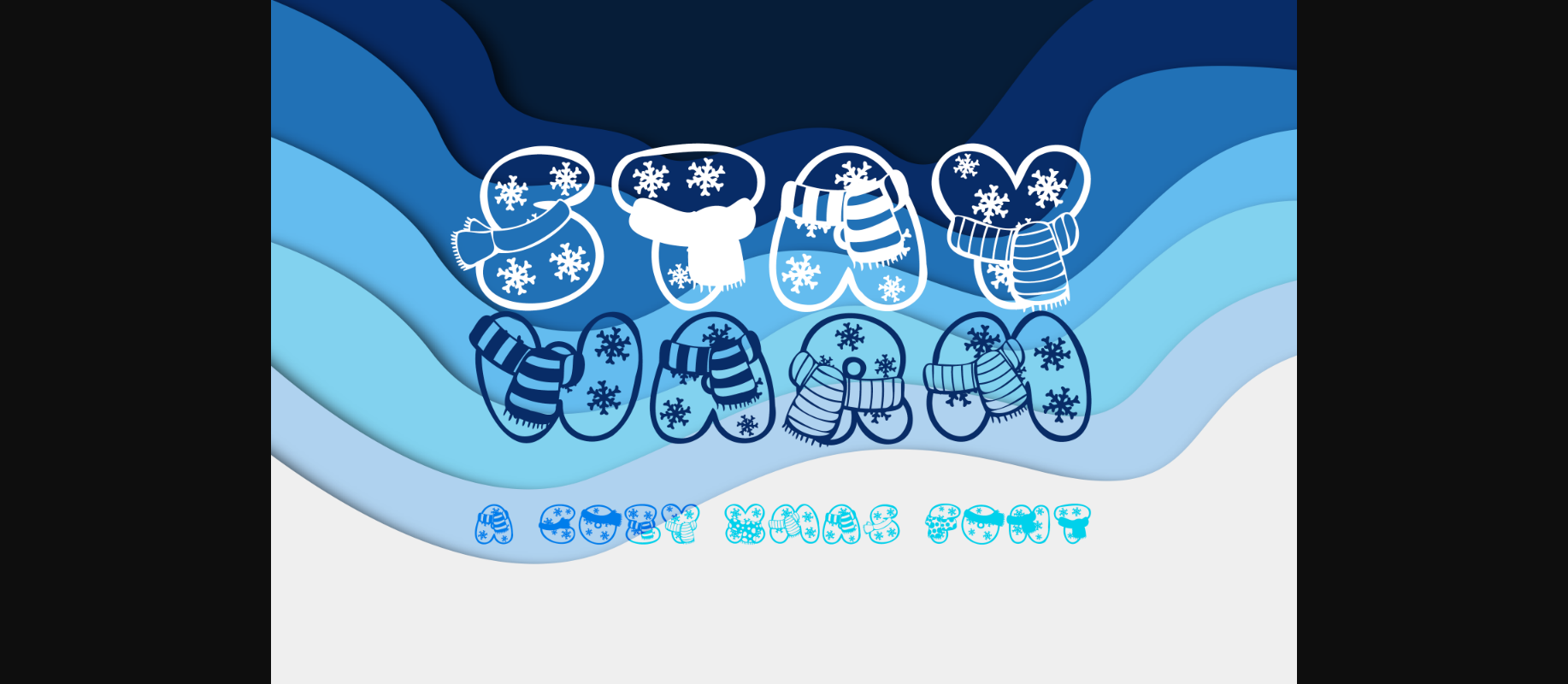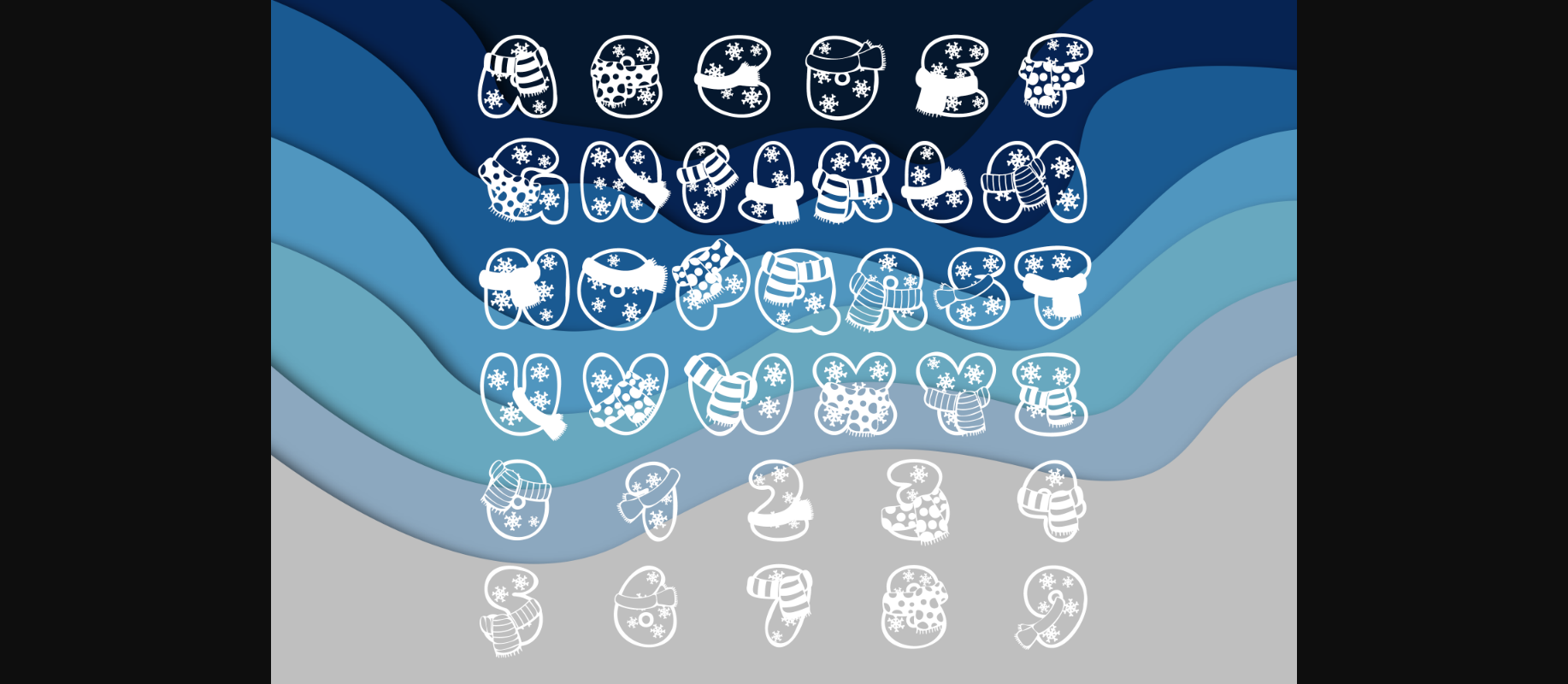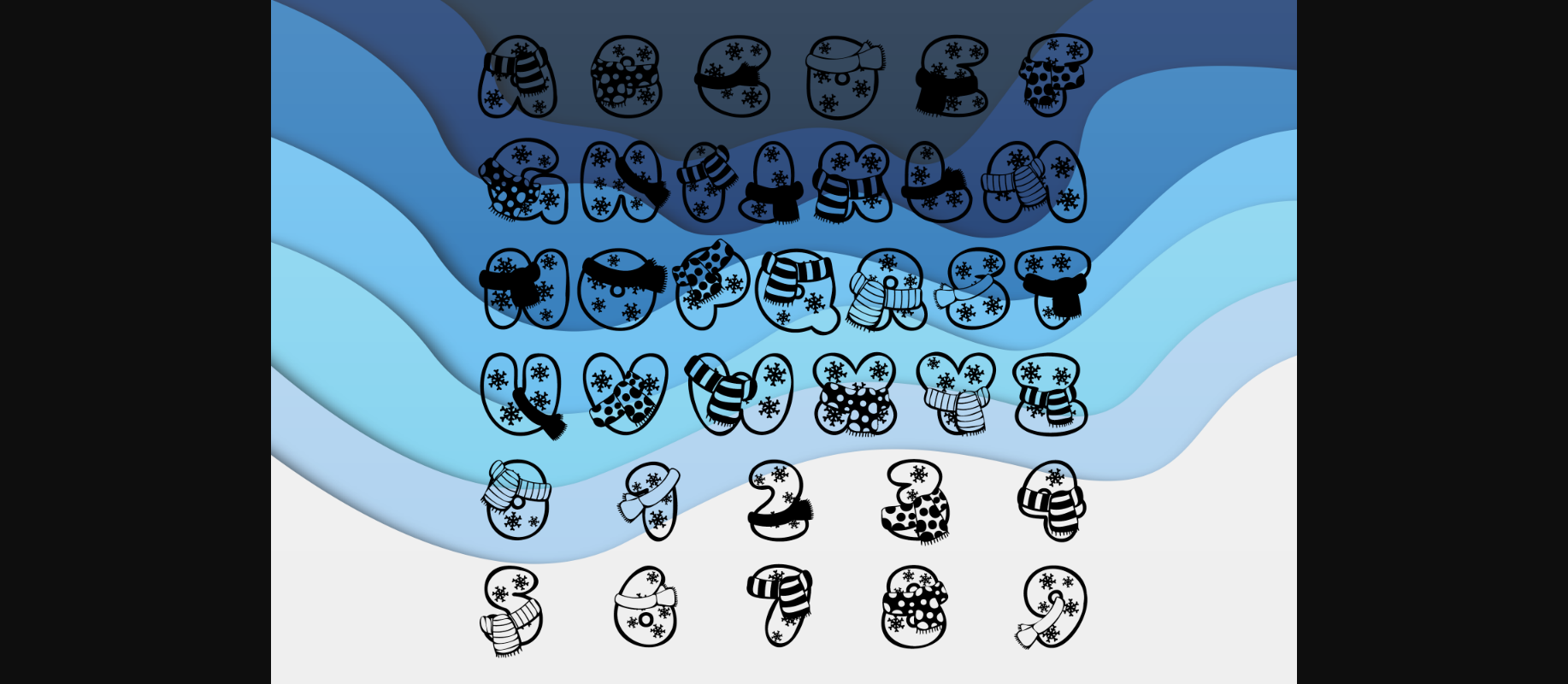
About Stay Warm Font
Stay Warm is an incredibly cool and wintery decorative font. Whether you use it for cartoon-related designs, children games, or just any creation that requires a lovely touch, this font will be an amazing choice.